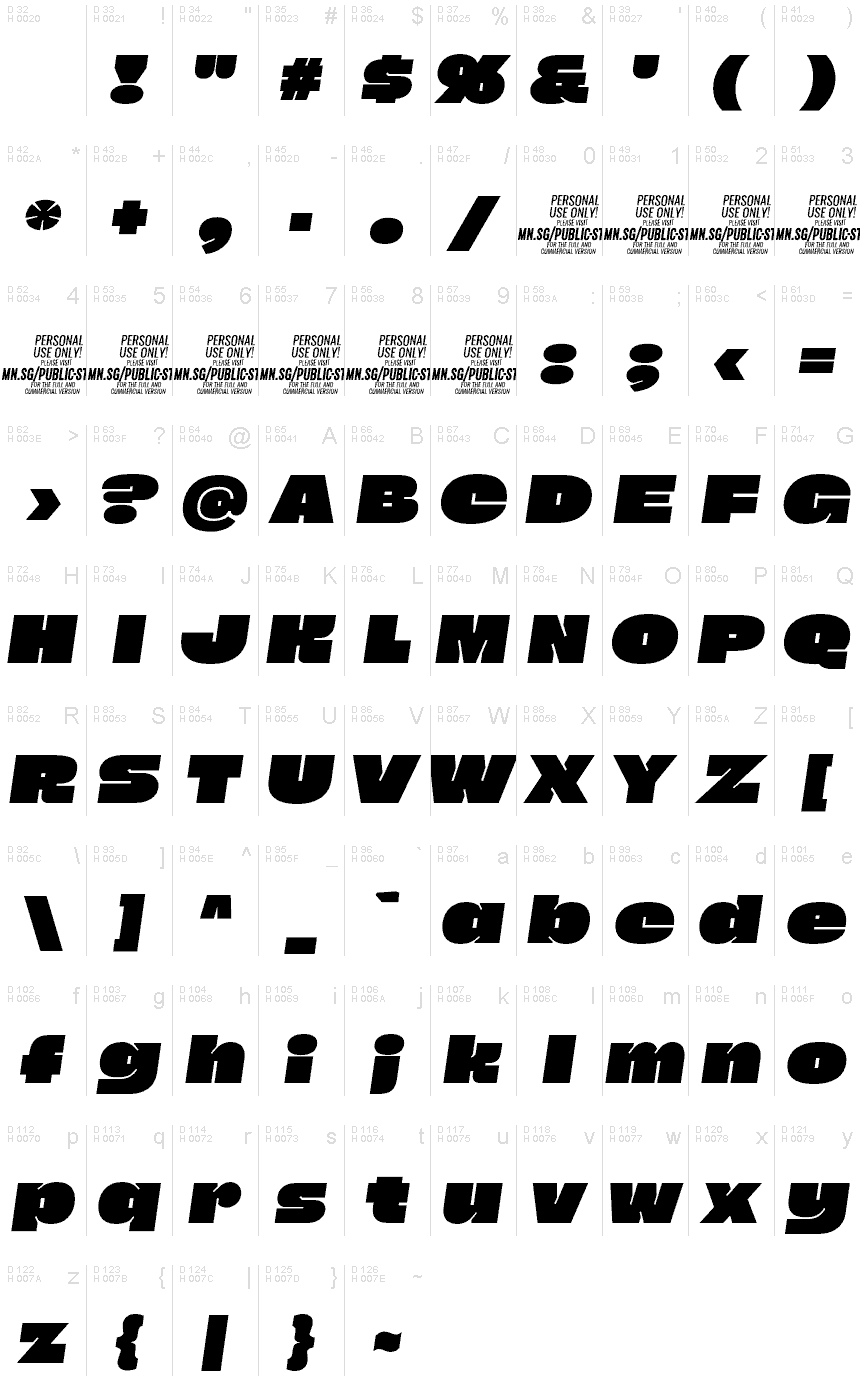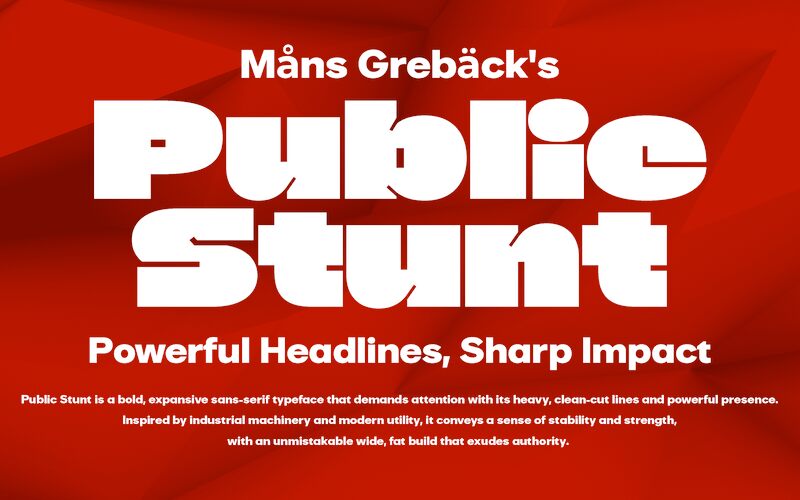
Primary Font PERSONAL USE Italic
Primary Italic is a bold, expanded sans serif font designed by Måns Grebäck. It exhibits an industrial, modern style noted for clean-cut lines and heavy characters for balance and readability, making it perfect for any display setting. Moreover, readers will find impressive its professional appearance because of the measured typography choices.